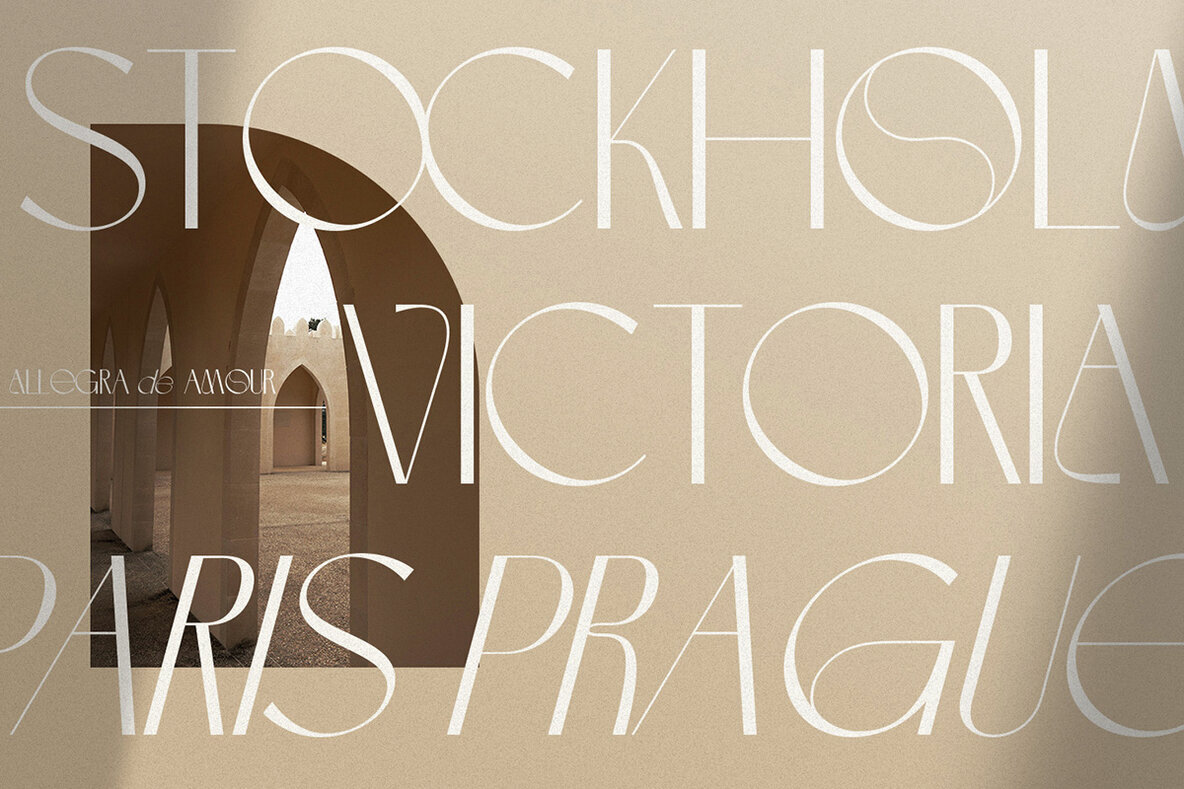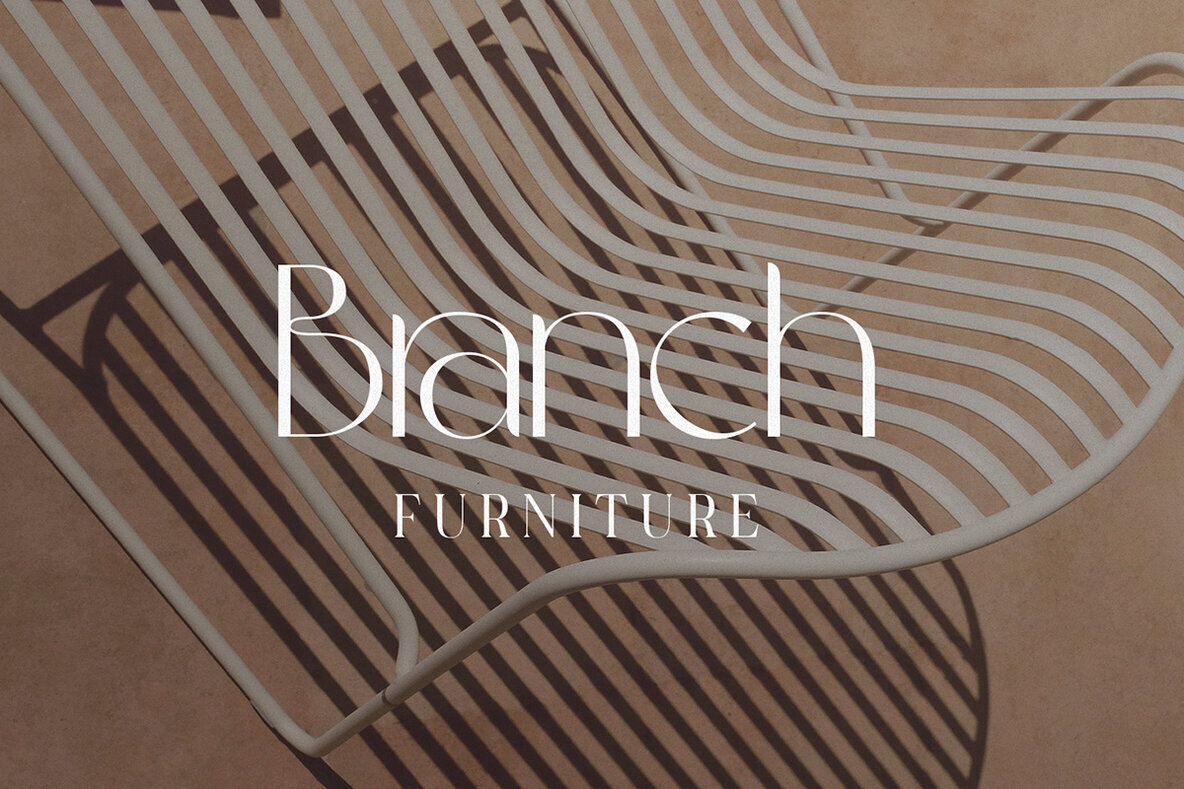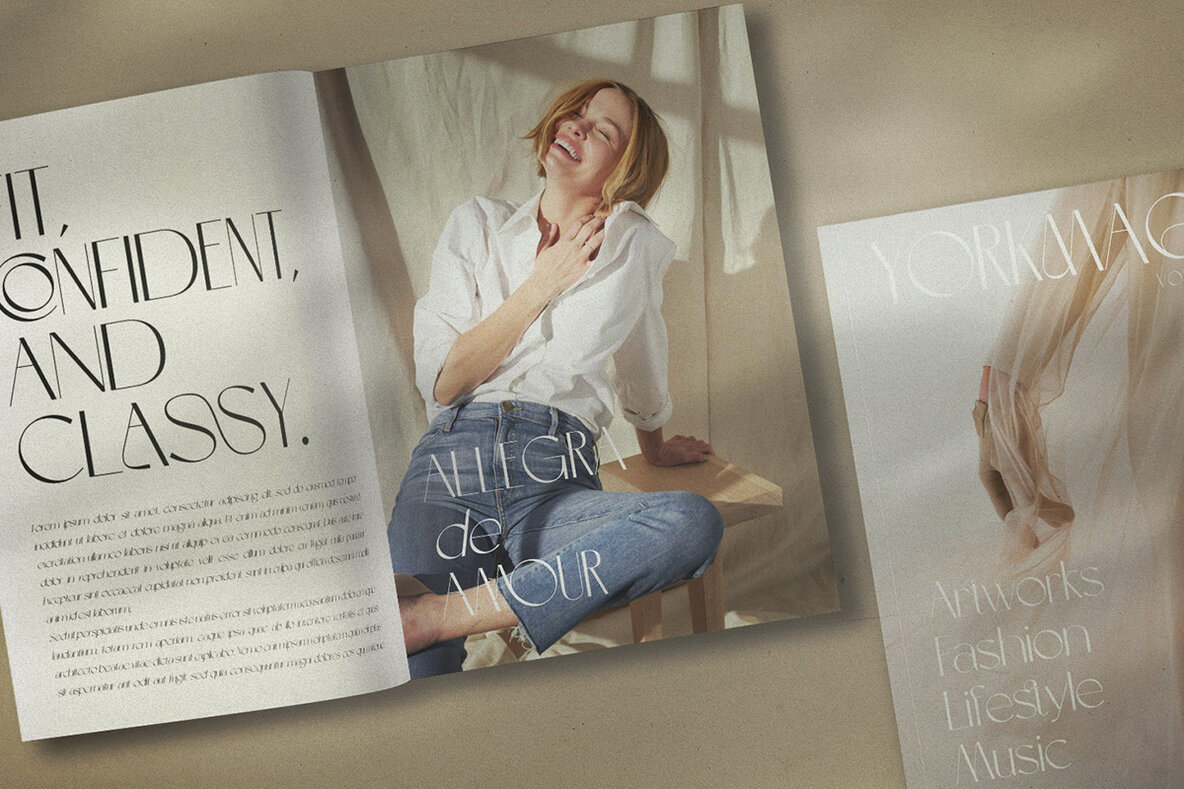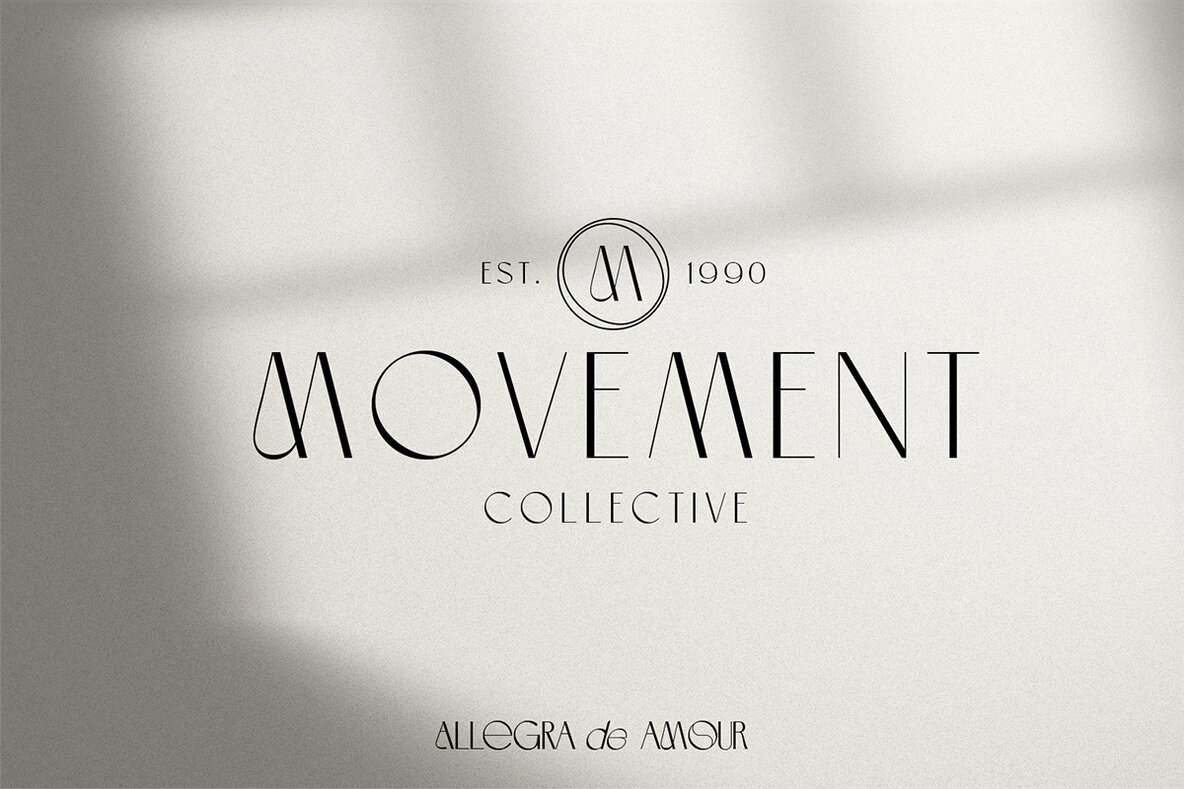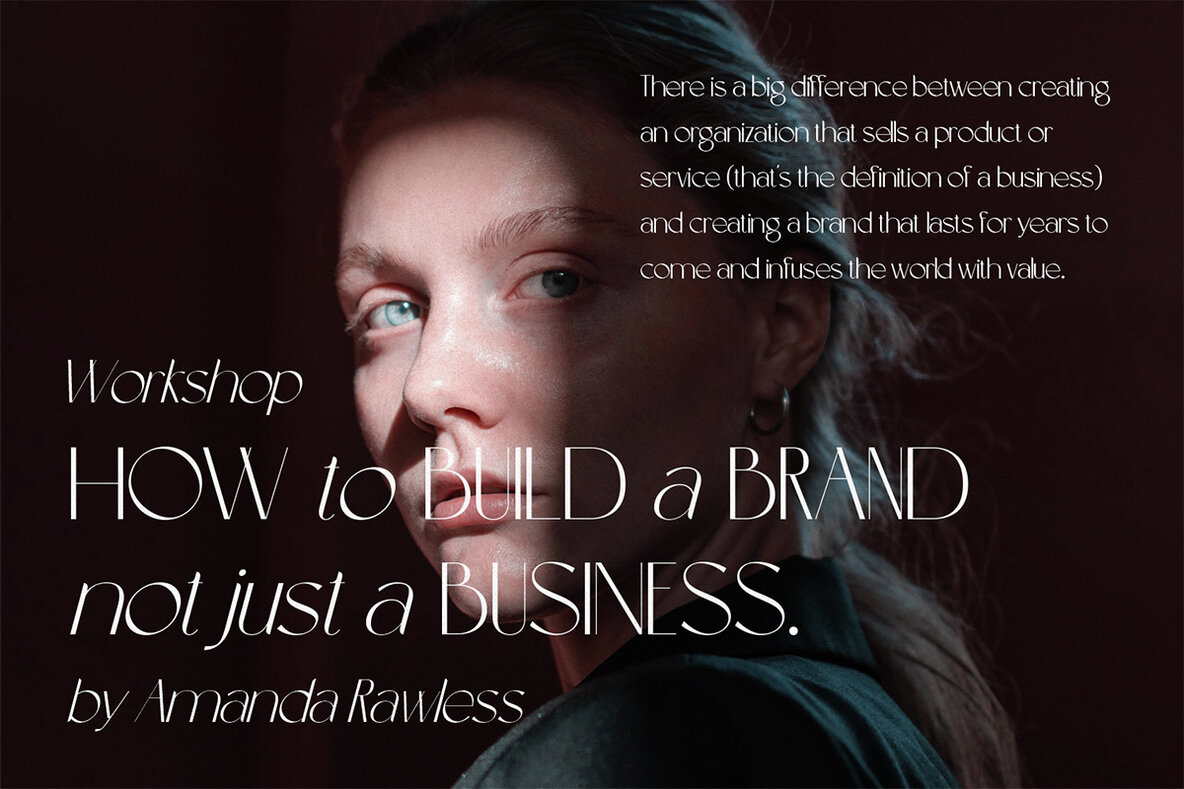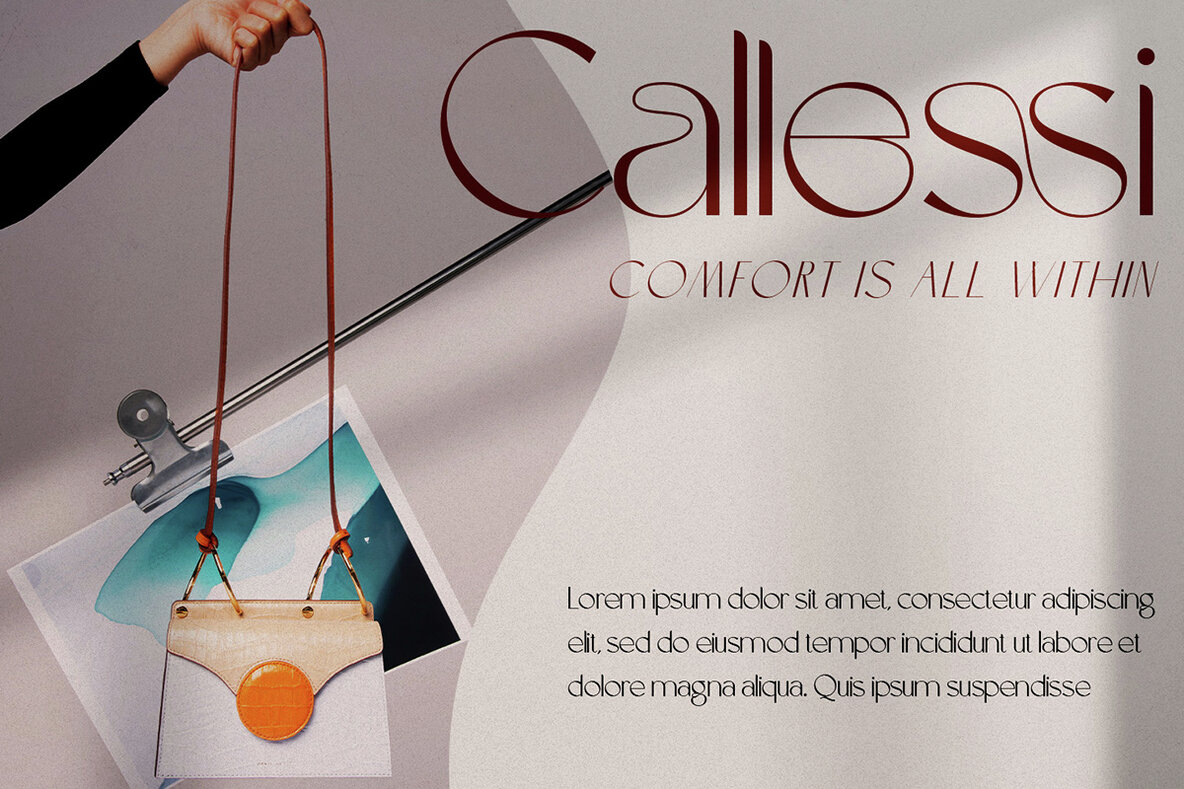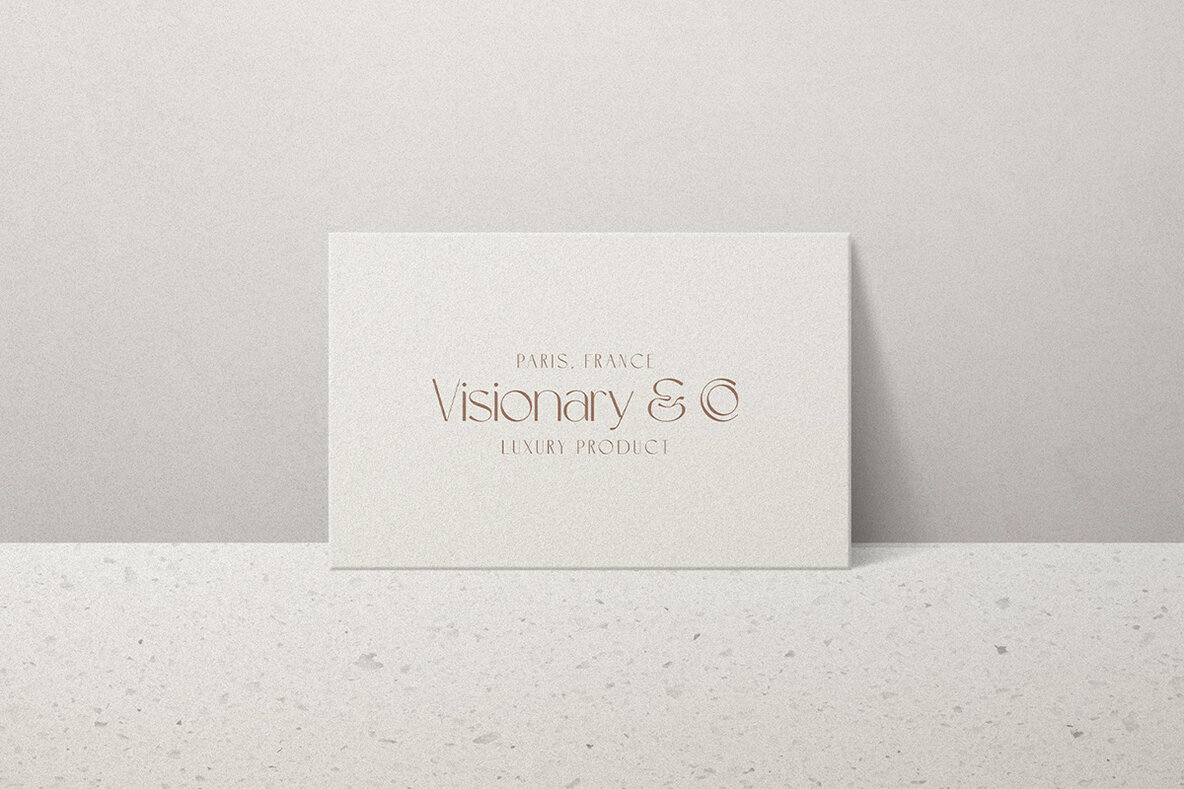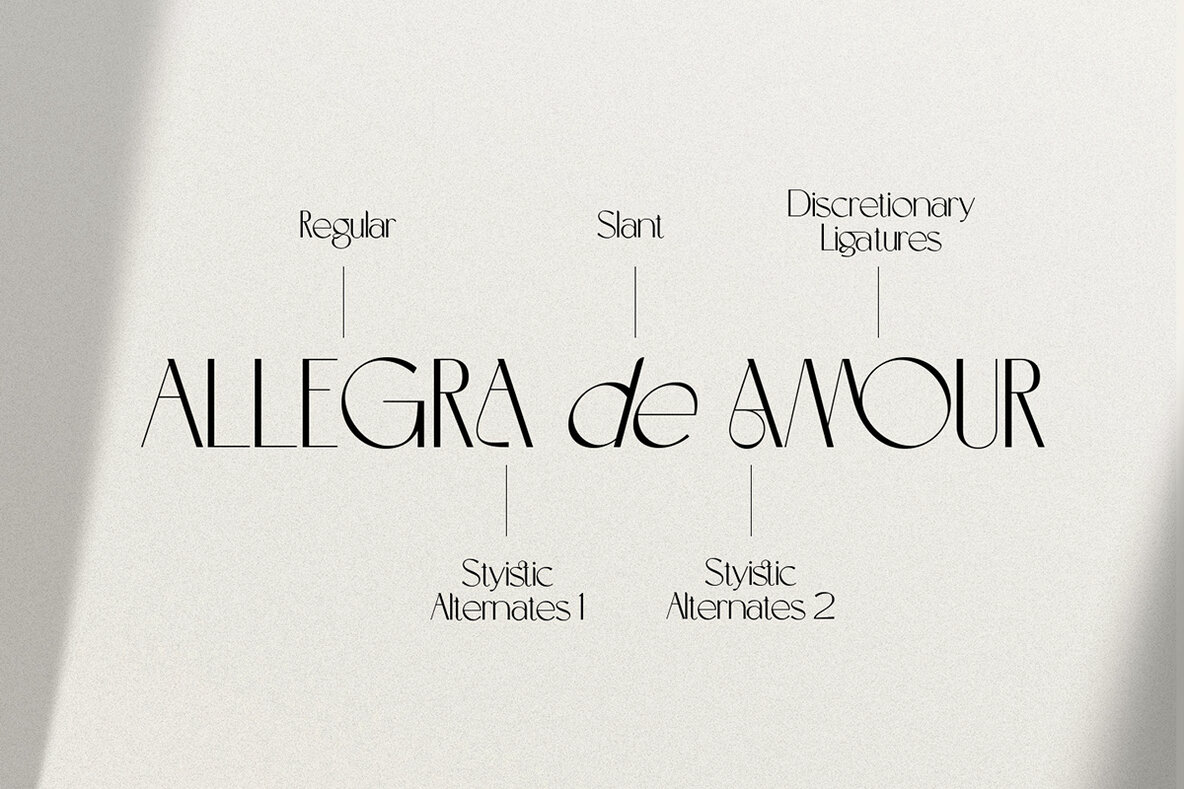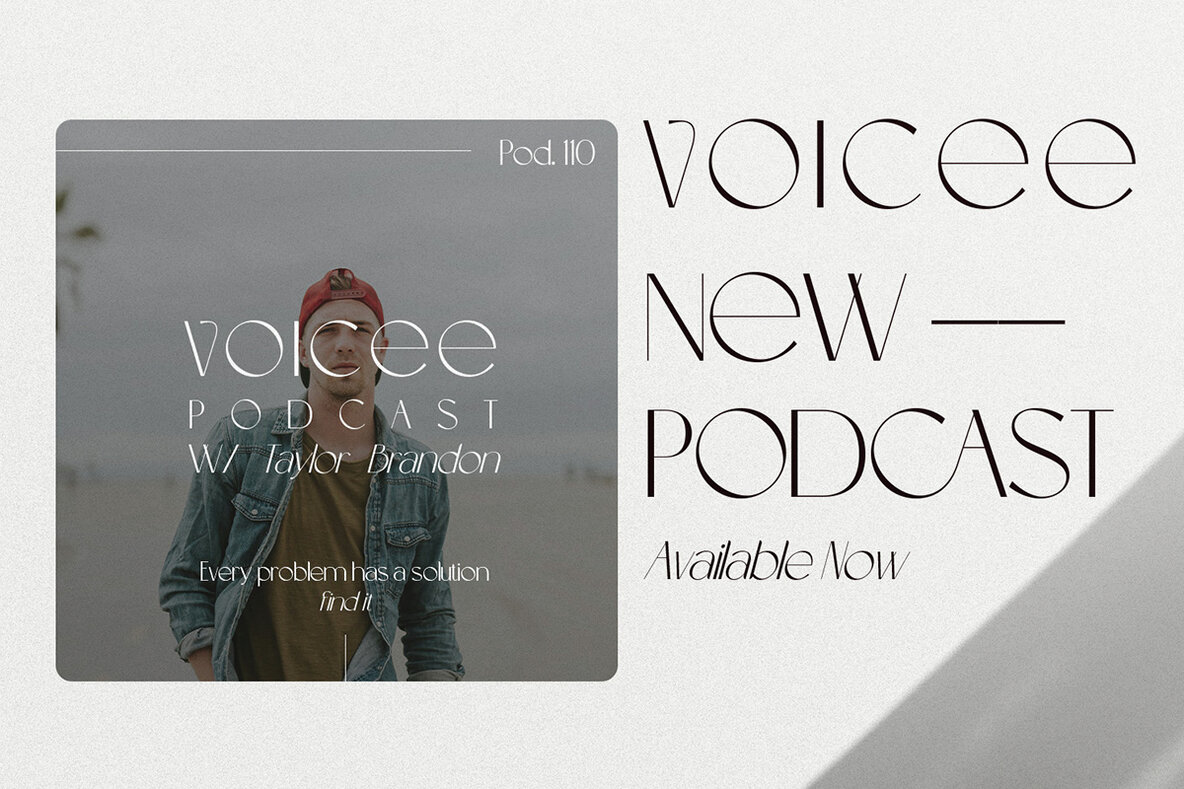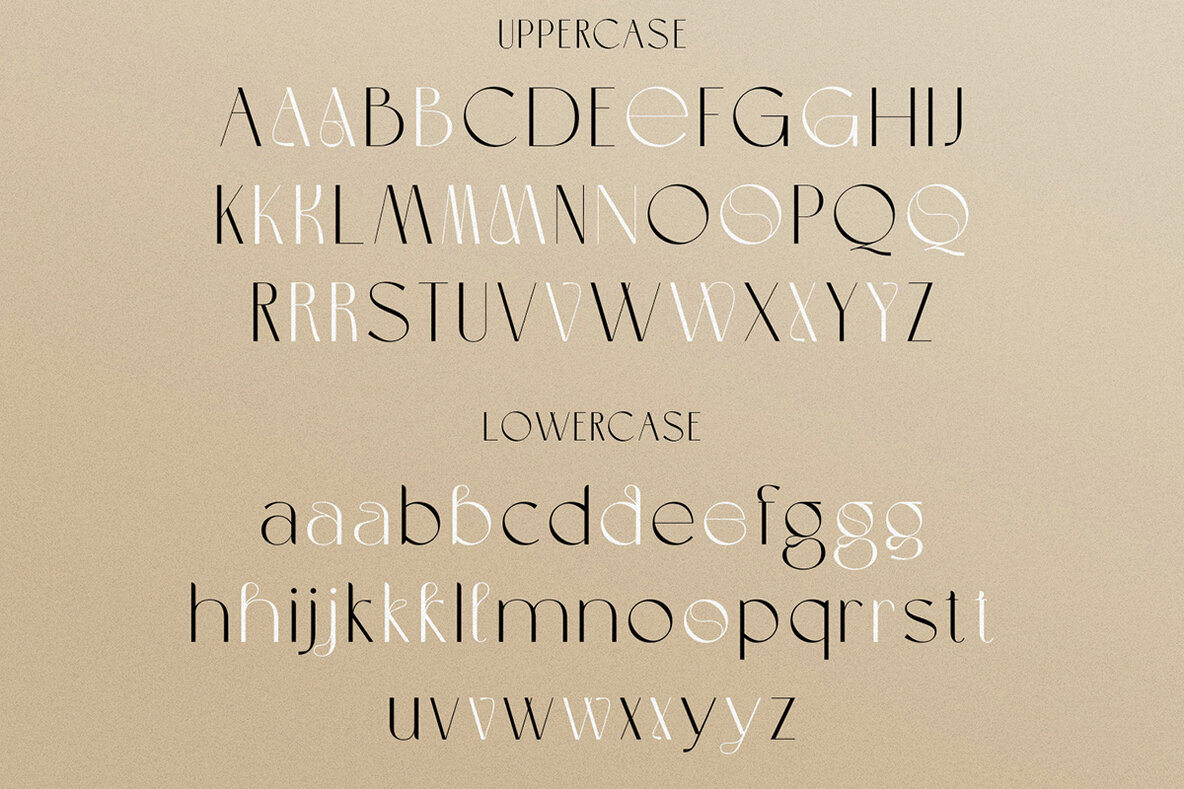
Allegra de Amour Font
Allegra de Amour is a sophisticated Sans Serif font featuring both uppercase and lowercase characters, enhanced with thoughtfully designed alternatives. Utilizing the OpenType features allows you to access a vast array of alternate letters and ligatures, offering flexibility and creativity in design. This font is ideal for professionals looking to tailor their typography with a selection of personalized letterforms, ensuring a custom look for any project.
Perfect for various applications, Allegra de Amour serves as a versatile choice for editorial projects, logo creation, clothing branding, and product packaging. Its elegant design also excels in providing magazine headers with a contemporary flair or as a chic text overlay on any background image. Whether you're crafting a striking logo or need a refined typeface for packaging, this font offers the adaptability to meet diverse creative needs.